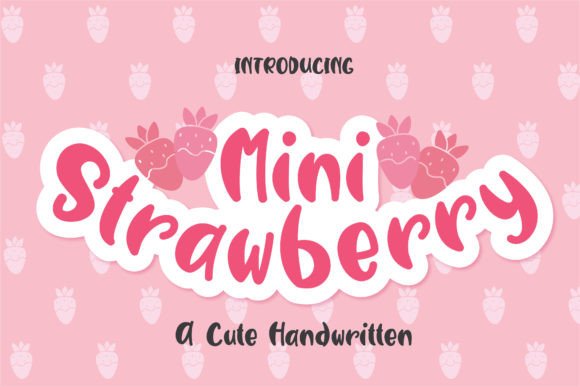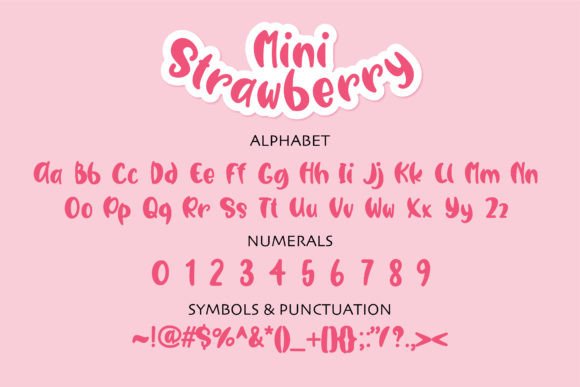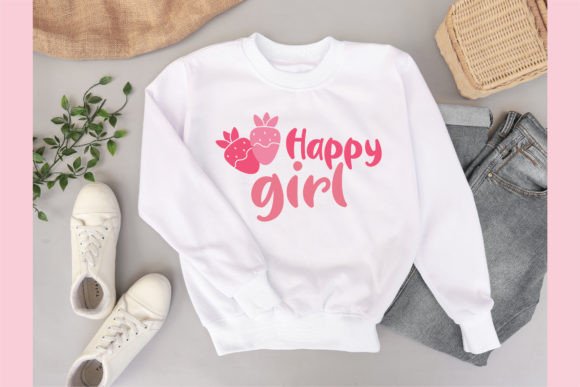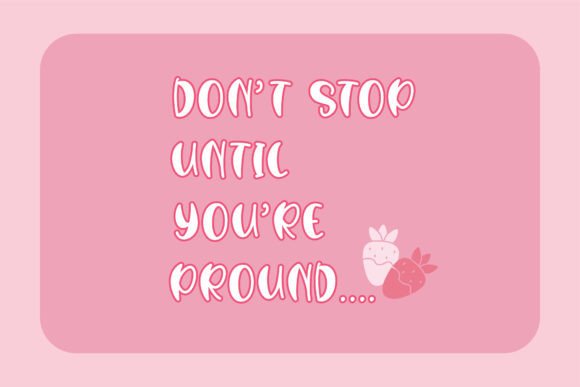
Mini Strawberry Font
About Mini Strawberry Font
Mini Strawberry is a lovely and playful handwritten font. Its natural and unique style makes it incredibly fitting to a large pool of designs. Have fun with this beautiful font and explore its endless variations.